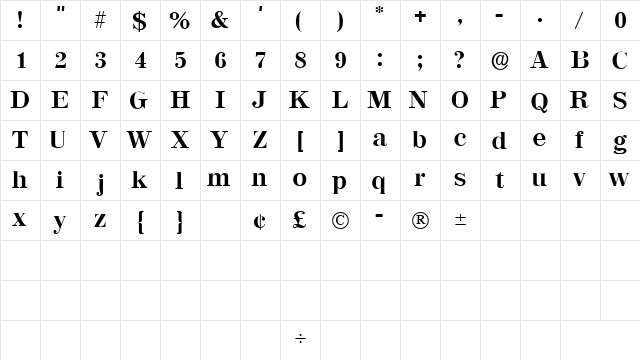
LuciaSSK Regular
Design Context for LuciaSSK Typeface
LuciaSSK offers clean, dependable letterforms without strong stylistic allegiance, making it a practical choice for designers who need flexibility.